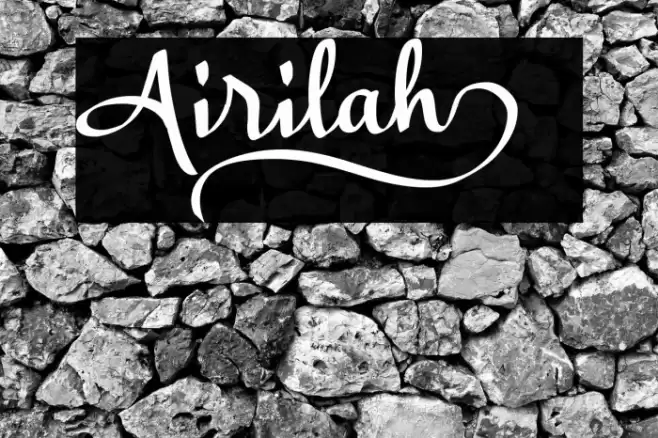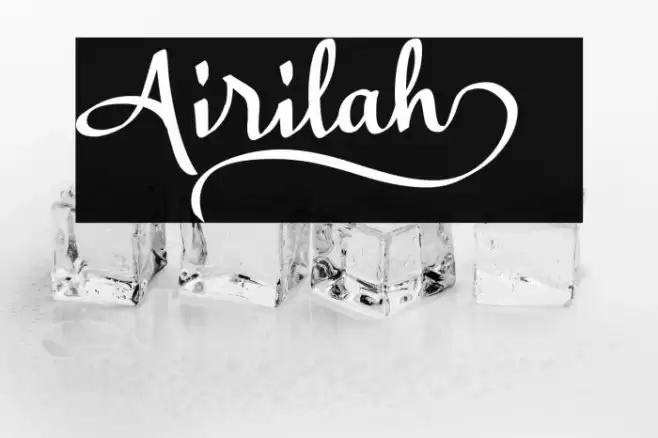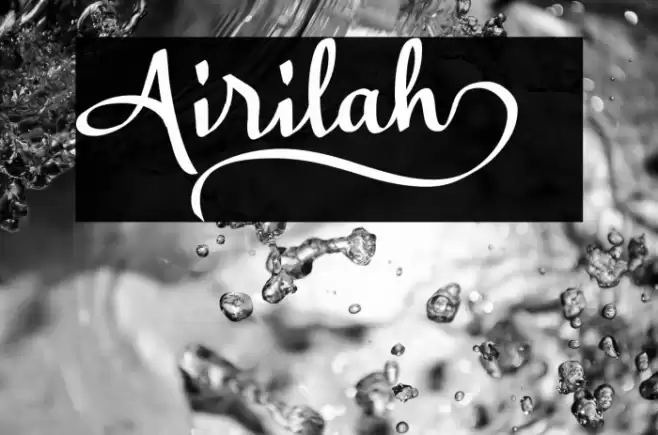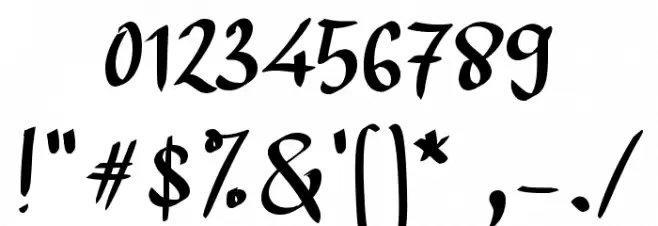
Airilah_ Font
Airilah_ Description
This font features a playful and elegant script style with a handwritten appearance. The uppercase letters are characterized by their flowing, interconnected strokes, giving a sense of movement and fluidity. The lowercase letters maintain a consistent style, with smooth curves and a slightly slanted orientation, enhancing the casual yet sophisticated feel. The numerals are clear and legible, matching the overall aesthetic of the font. Special characters are designed to complement the script style, ensuring a cohesive look across all text elements. This font's unique charm makes it suitable for creative and artistic projects.
A playful and elegant script font with a handwritten style from Uncategorized fonts.
- Proposed Projects: Ideal for wedding invitations, greeting cards, branding, and logo design.
- Use Case: Logos, Invitations, Artistic projects